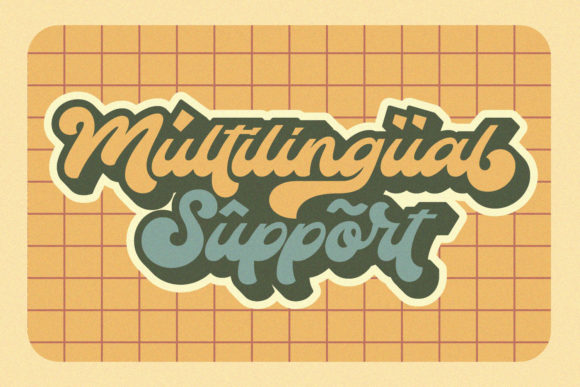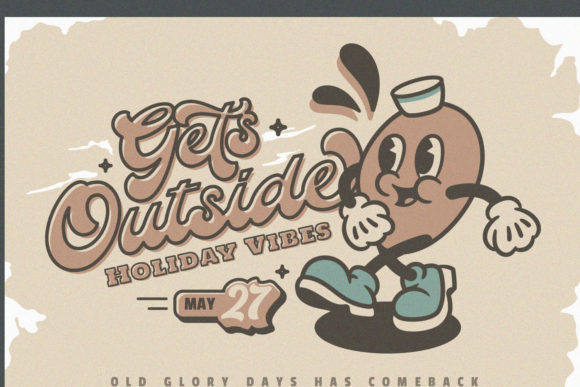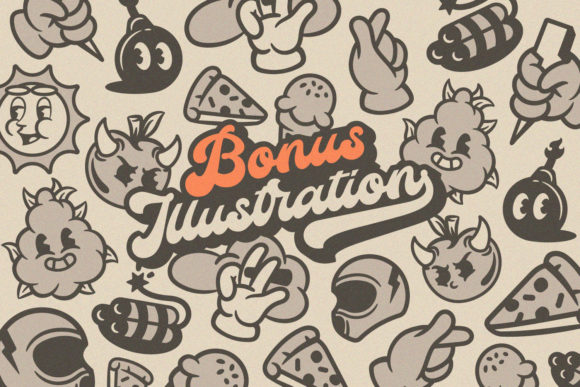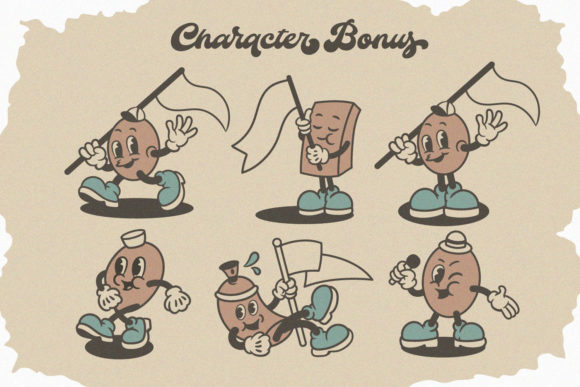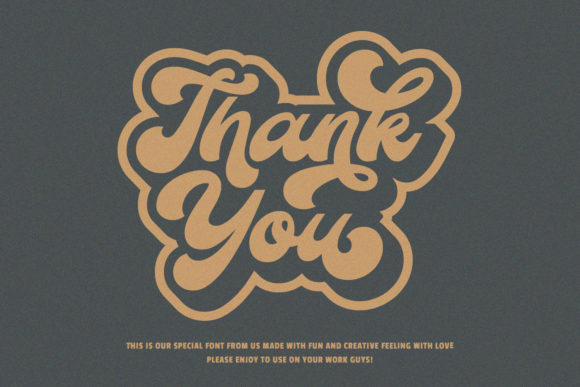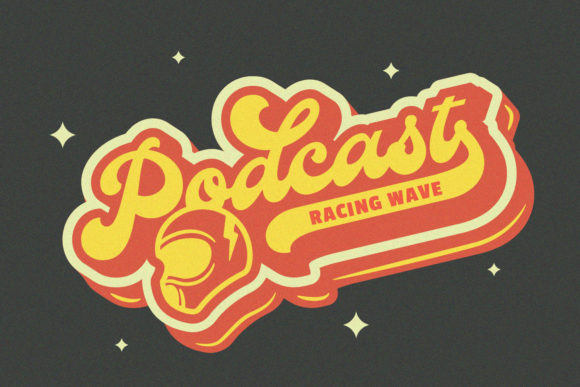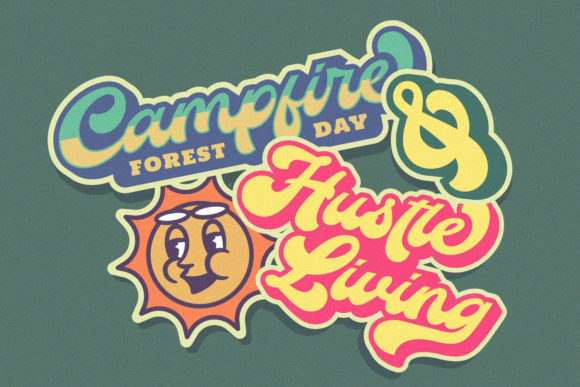
The Auratype Font
About The Auratype Font
The Auratype is a retro and classic typeface, inspired by the 60s – 80s designs. This font is suitable for logos, stickers, tees, banners, posters, signs, and various other creations. The Auratype is PUA encoded which means you can access all glyphs and swashes with ease!